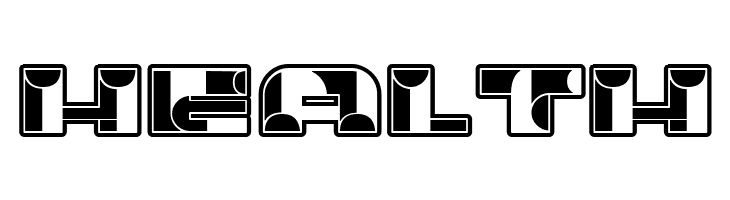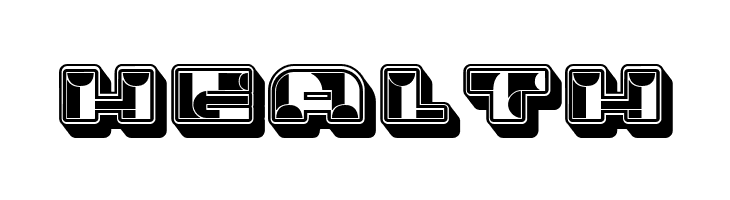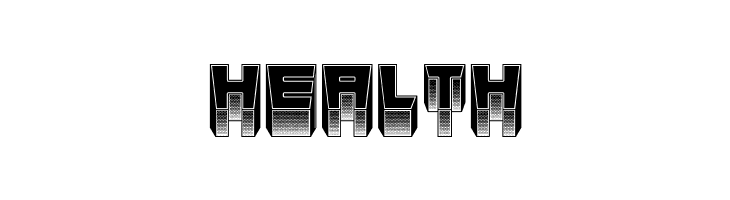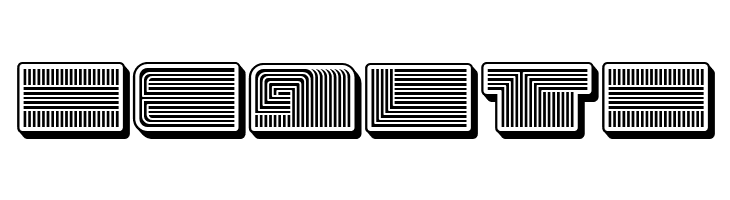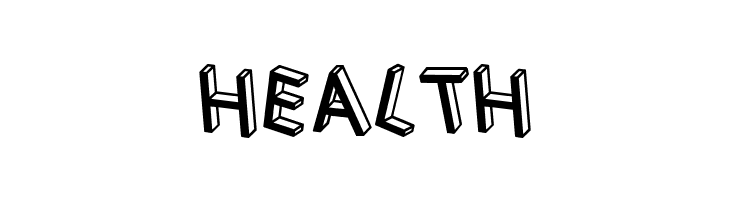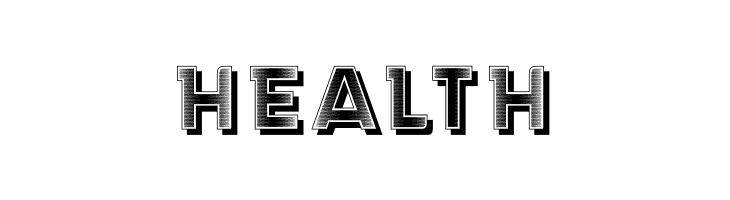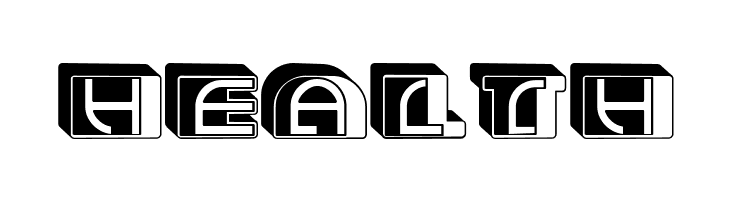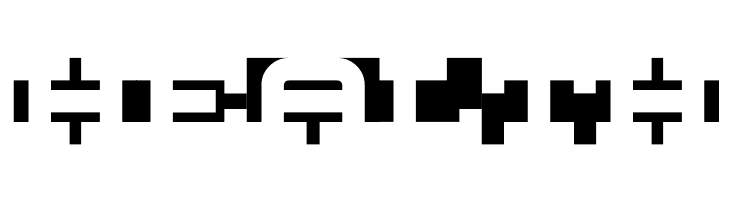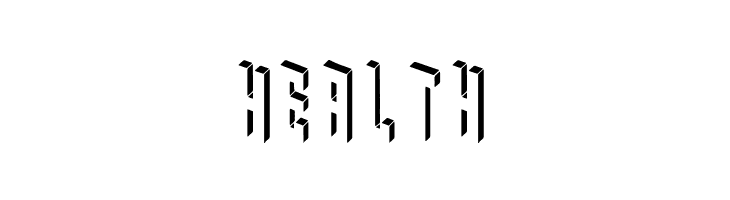
Unanimous Inverted BRK Font
A bold, rounded, and modern font with a playful and approachable style.
GF Ordner Inverted Font
A rugged, distressed font with a vintage, industrial feel.
AC Mountain Inverted Font
A modern, geometric font with art deco influences and sharp, clean lines.
AC Framed Inverted Font
A bold, three-dimensional font with a shadow effect and geometric design.
3D Letters Shadow Inverted Regular Font
A bold, 3D font with inverted shadow effects for a striking appearance.
Pf_veryverybadfont7 Inverted Font
A stylized, hand-drawn font with thin, elongated strokes and a playful aesthetic.
Blockbaq Inverted Font
A bold, three-dimensional font with sharp angles and a shadow effect.
pyramid inverted Font
A geometric, angular font with intricate overlapping lines and bold outlines.
Gypsy Tarot-Minor Arcana Inverted Font
Ornate, vintage serif font with hand-drawn, decorative details.
Blocky Letters Inverted Regular Font
A bold, three-dimensional block font with a modern, futuristic style.
Pancake Extravagant Inverted Regular Font
A bold, decorative font with a layered, three-dimensional effect and tight character spacing.
Metallic Inverted Regular Font
A bold, three-dimensional font with a metallic, futuristic appearance.
Brightness Inverted Regular Font
A bold, geometric font with a dynamic halftone pattern.
Backflash Inverted Regular Font
A pixelated, dot-based font with a retro digital aesthetic.
Patriotic No Stars Inverted Italic Font
A bold, italicized font with a decorative outline style and dynamic appearance.
Metallic Sharp Inverted Regular Font
A bold, three-dimensional font with a metallic, sharp, and geometric design.
Jot Sp Inverted Regular Font
A bold, distressed font with uppercase letters in black squares, featuring a grunge texture.
Zylinder Inverted Rustique Regular Font
Kings Inverted Regular Font
A bold, geometric font with a 3D effect and strong contrast.
Slabyanuz titling inverted Font
A bold, modern font with an inverted, striking design and strong visual impact.